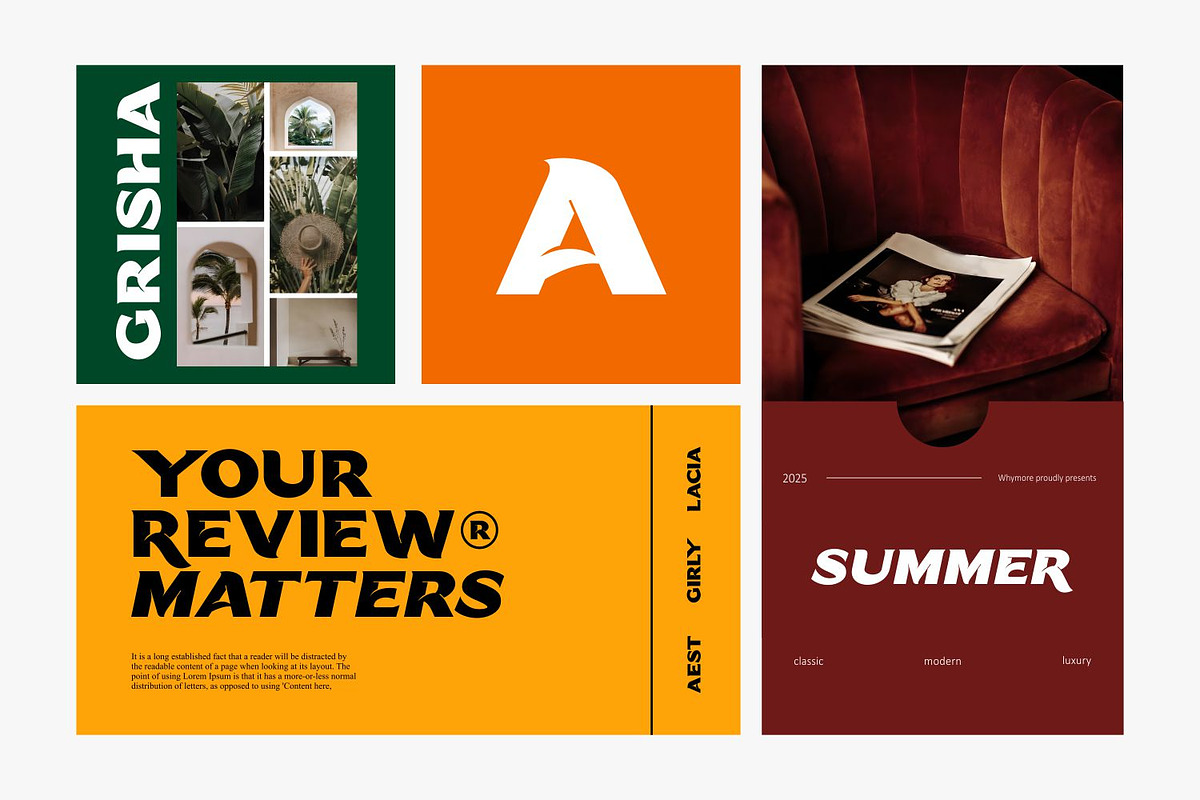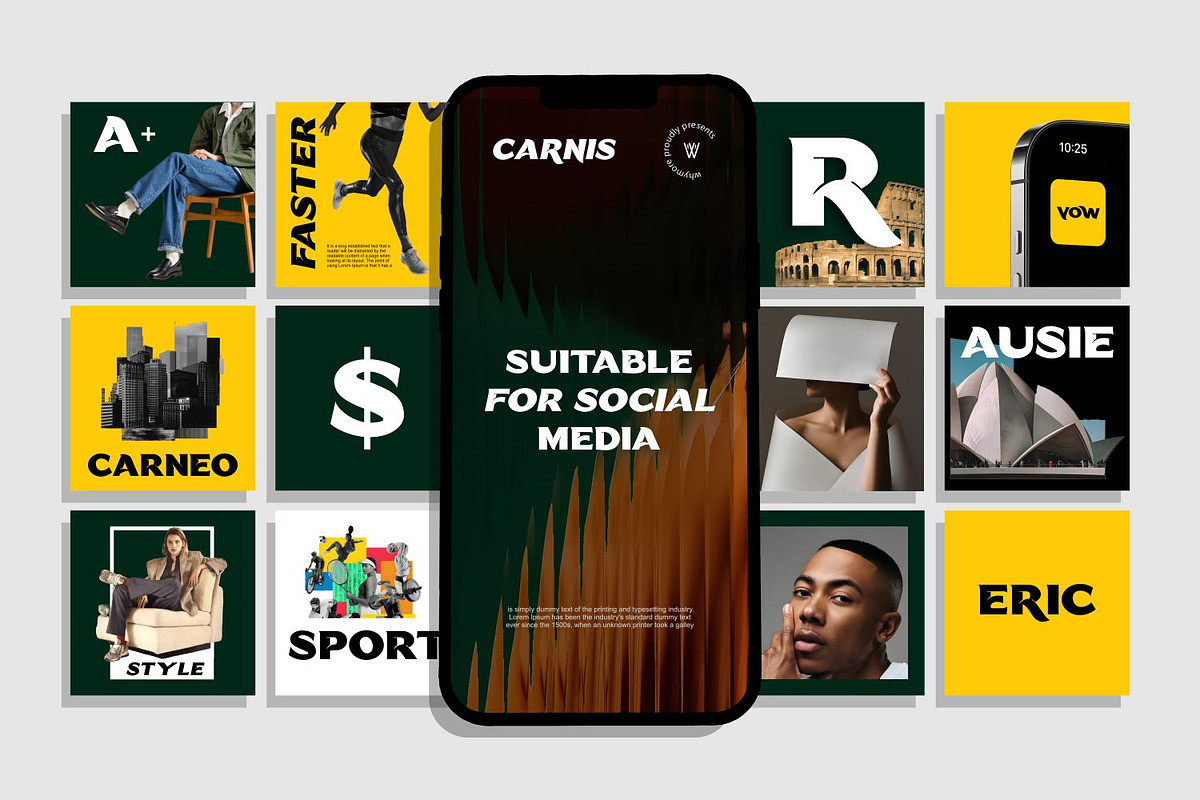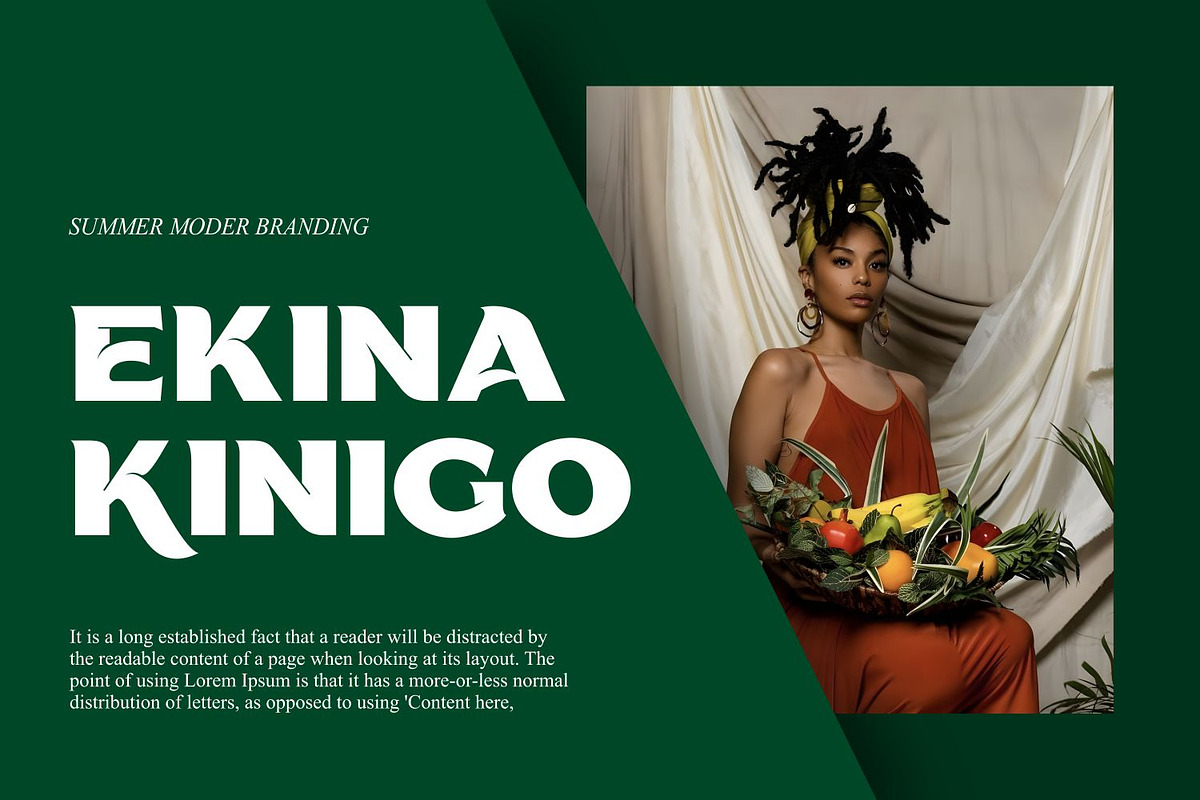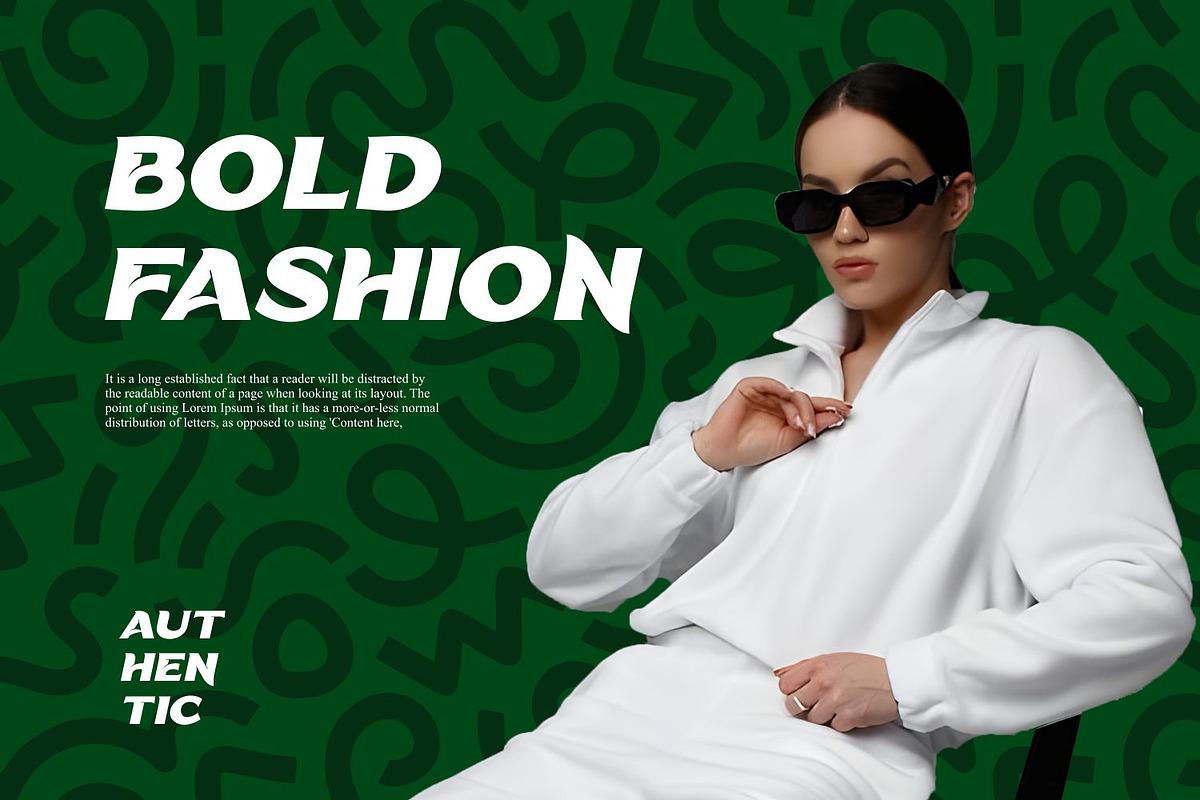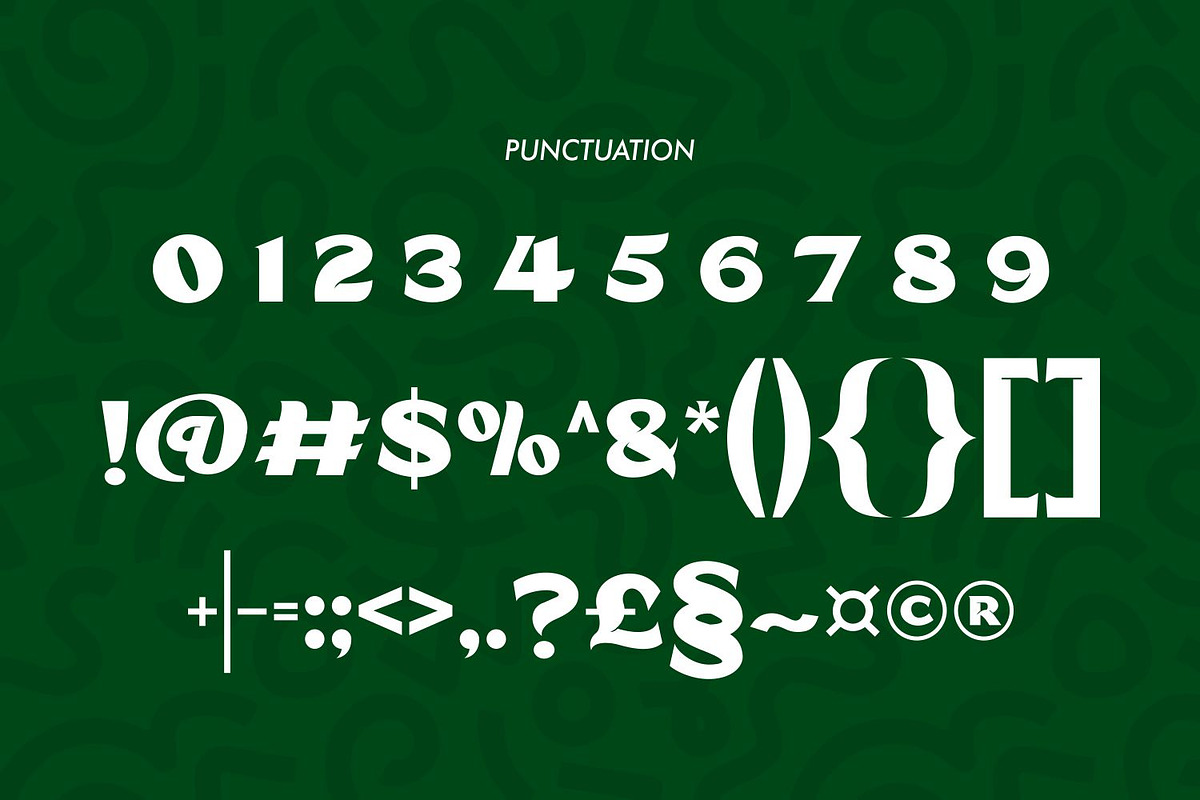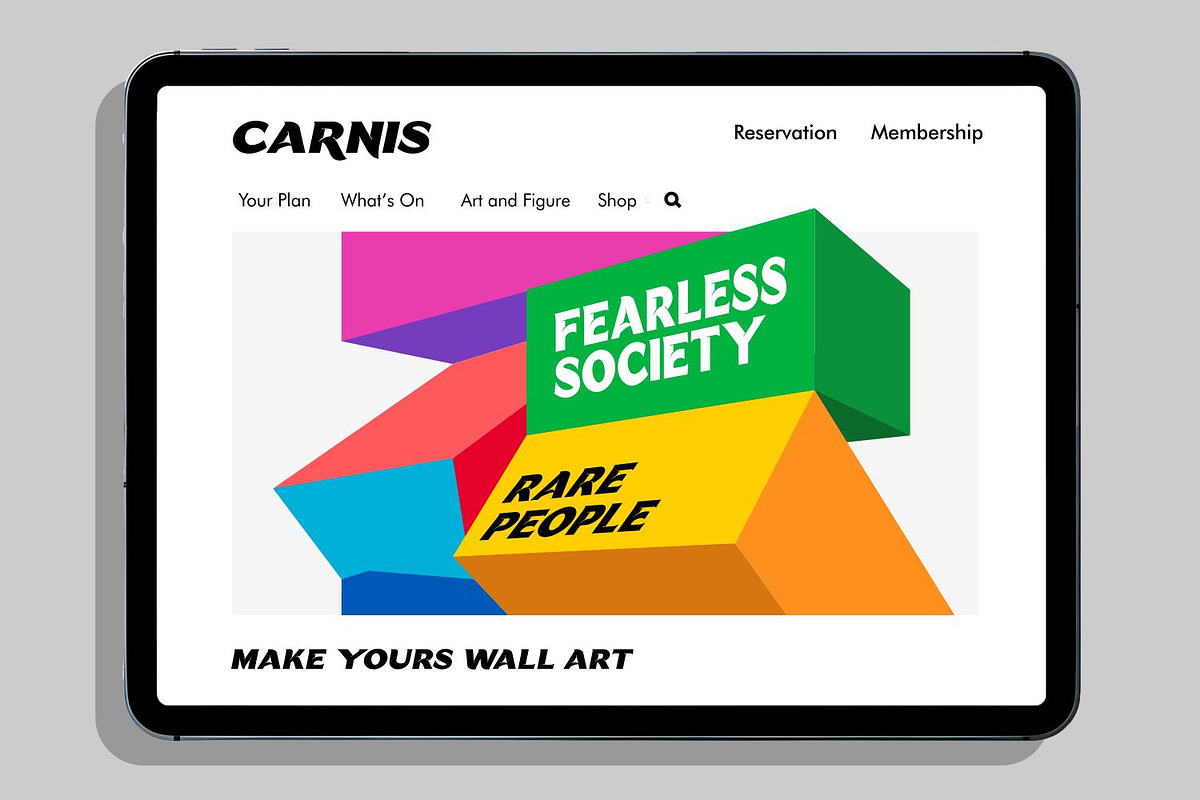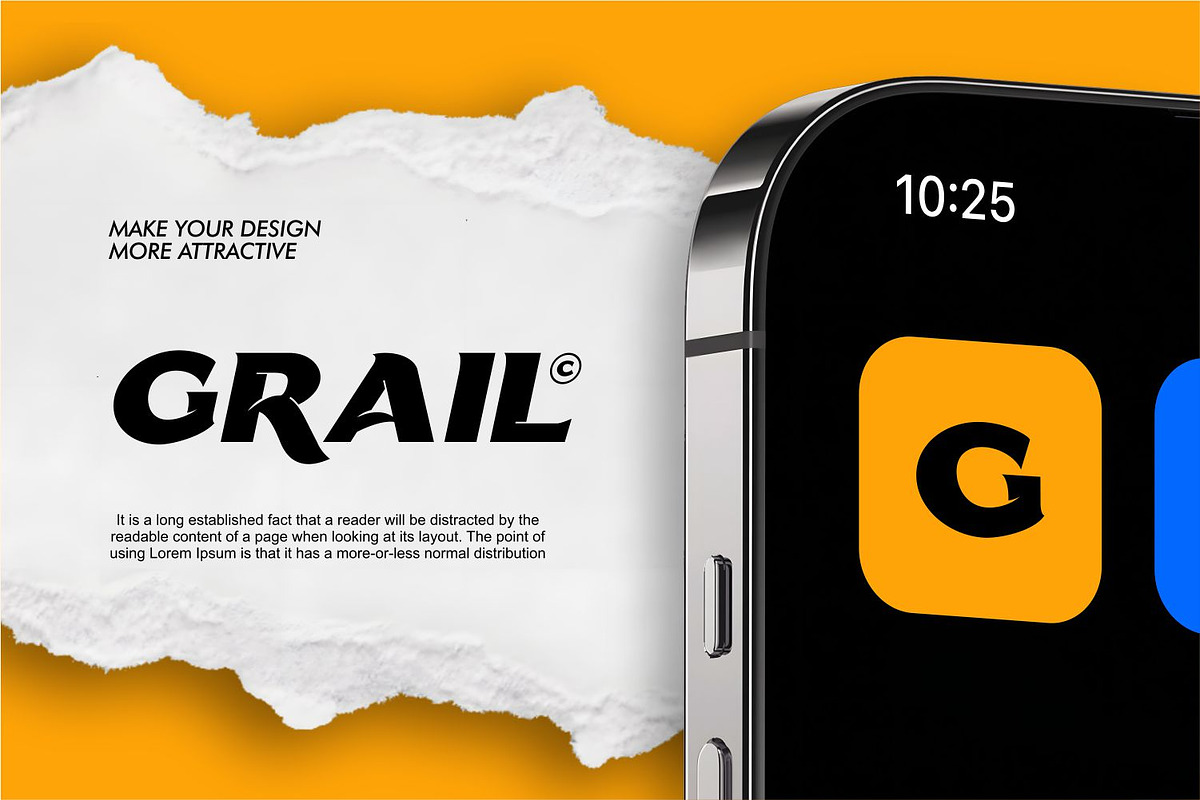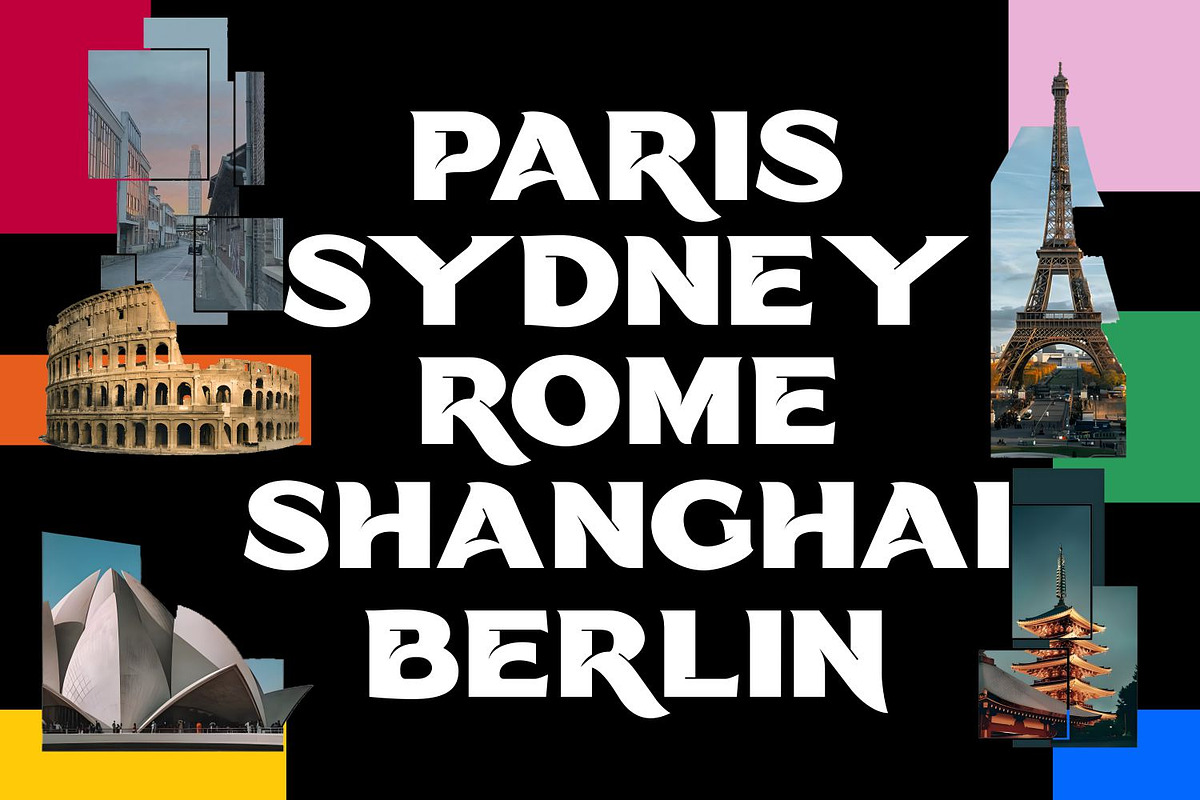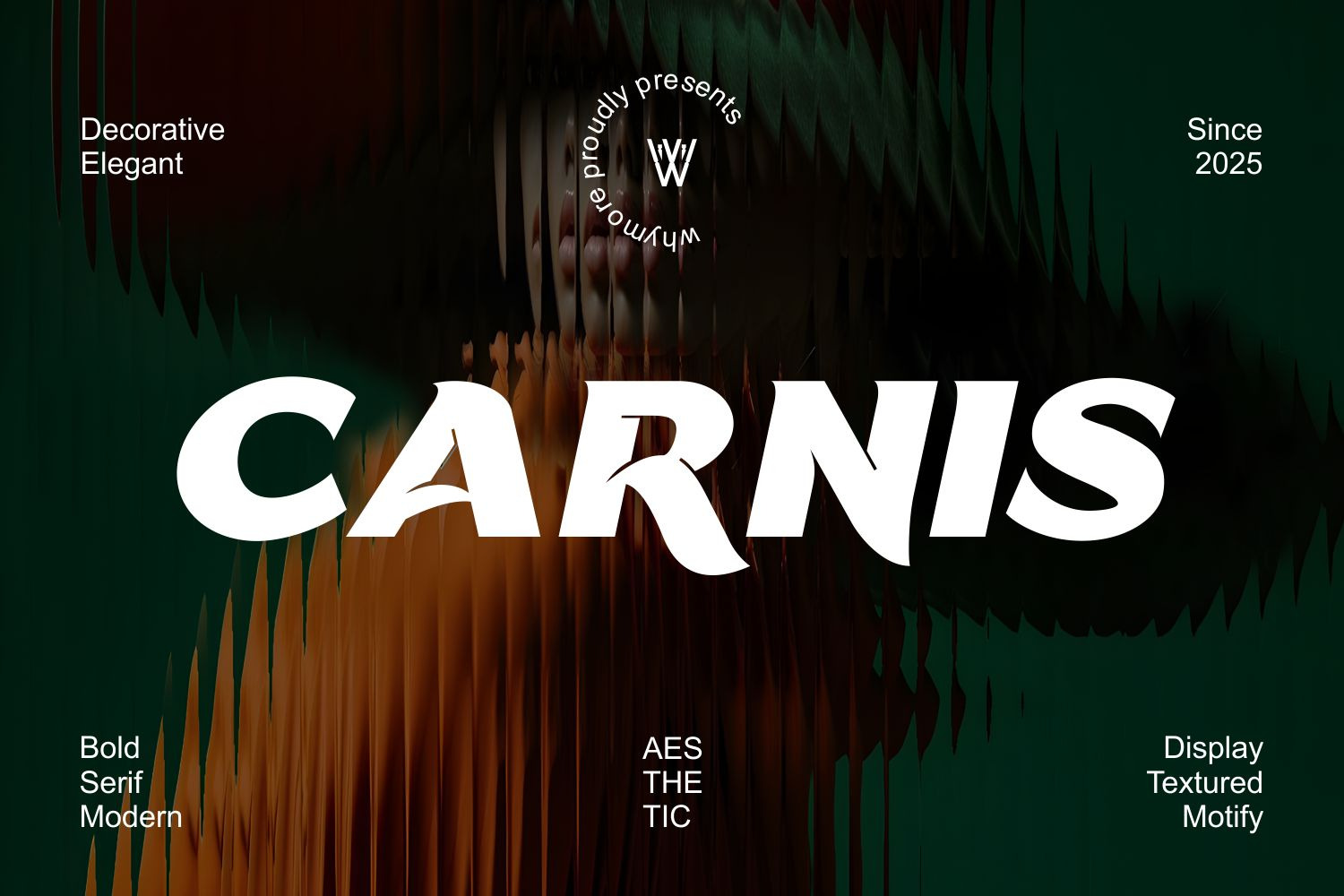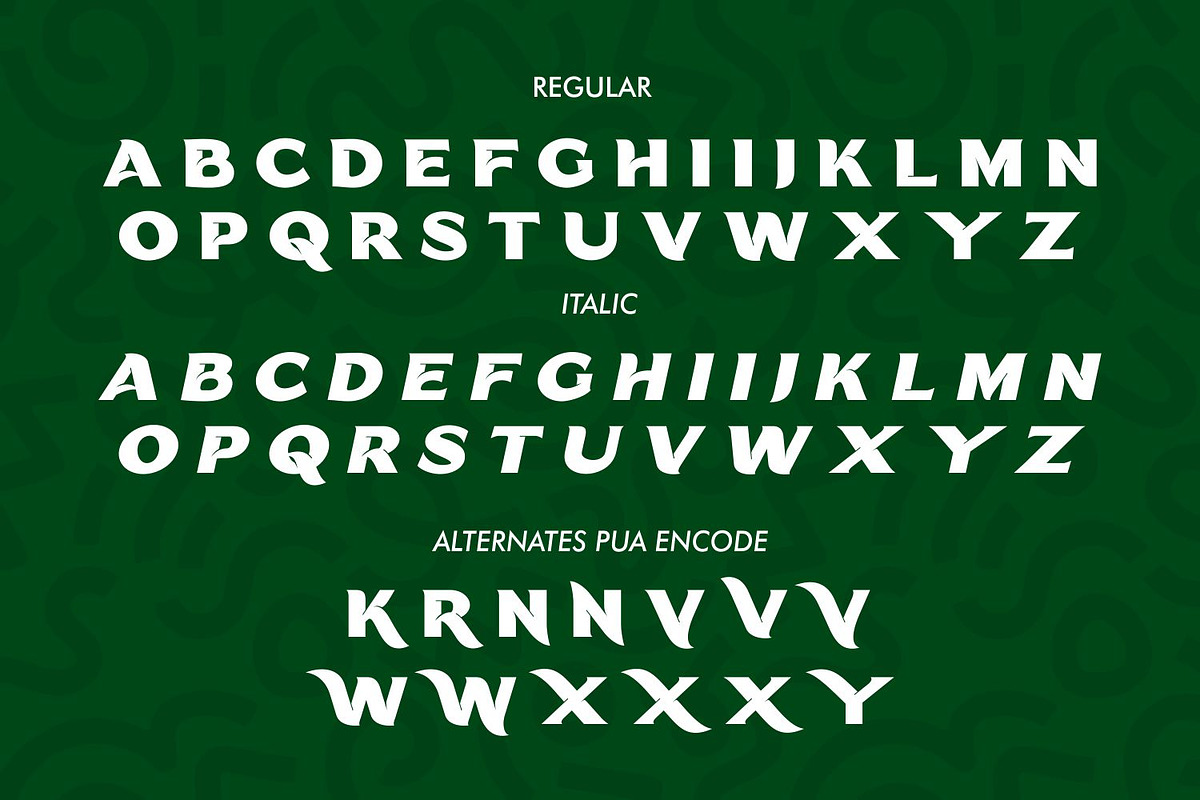
CARNIS Font - Bold Decorative Sans
CARNIS is a bold and decorative sans serif font crafted to command attention in any visual setting. With a modern, assertive, and aesthetic design, CARNIS blends geometric structure and powerful letterforms—making it the perfect choice for professional branding, iconic logos, standout posters, and eye-catching social media content.
This typeface isn’t just built for digital use—it's also ideal for print media such as packaging, signage, editorial layouts, and stationery mockups. Exclusively designed to be elegant yet impactful, CARNIS is a go-to font for graphic designers, creative agencies, content creators, and visionary brands aiming to stand out in a competitive market.
🎯 Why Choose CARNIS?
Branding that Stands Out – Perfect for logos, headlines, posters, and design projects that need a bold voice.
Full of Character – A unique blend of bold sans serif style with subtle Y2K and grunge aesthetics.
Versatile Use – Great for both digital and print projects, including display banners, ad campaigns, and editorial design.
Inspired by Contemporary Aesthetics – A flawless fit for fashion, tech, music, and urban lifestyle themes.